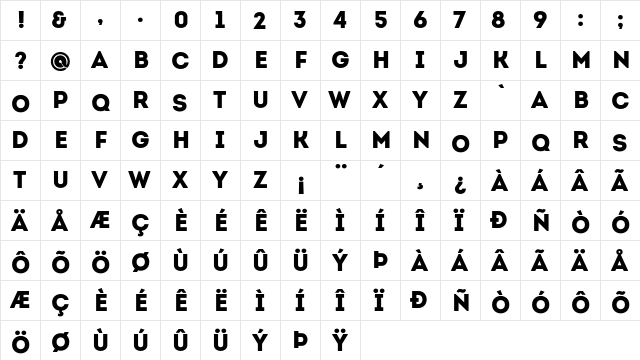
Intro Regular
| Foundry | Svet Simov |
| Designer | Svet Simov |
Design Context for Intro Typeface
Intro offers clean, dependable letterforms without strong stylistic allegiance, making it a practical choice for designers who need flexibility.